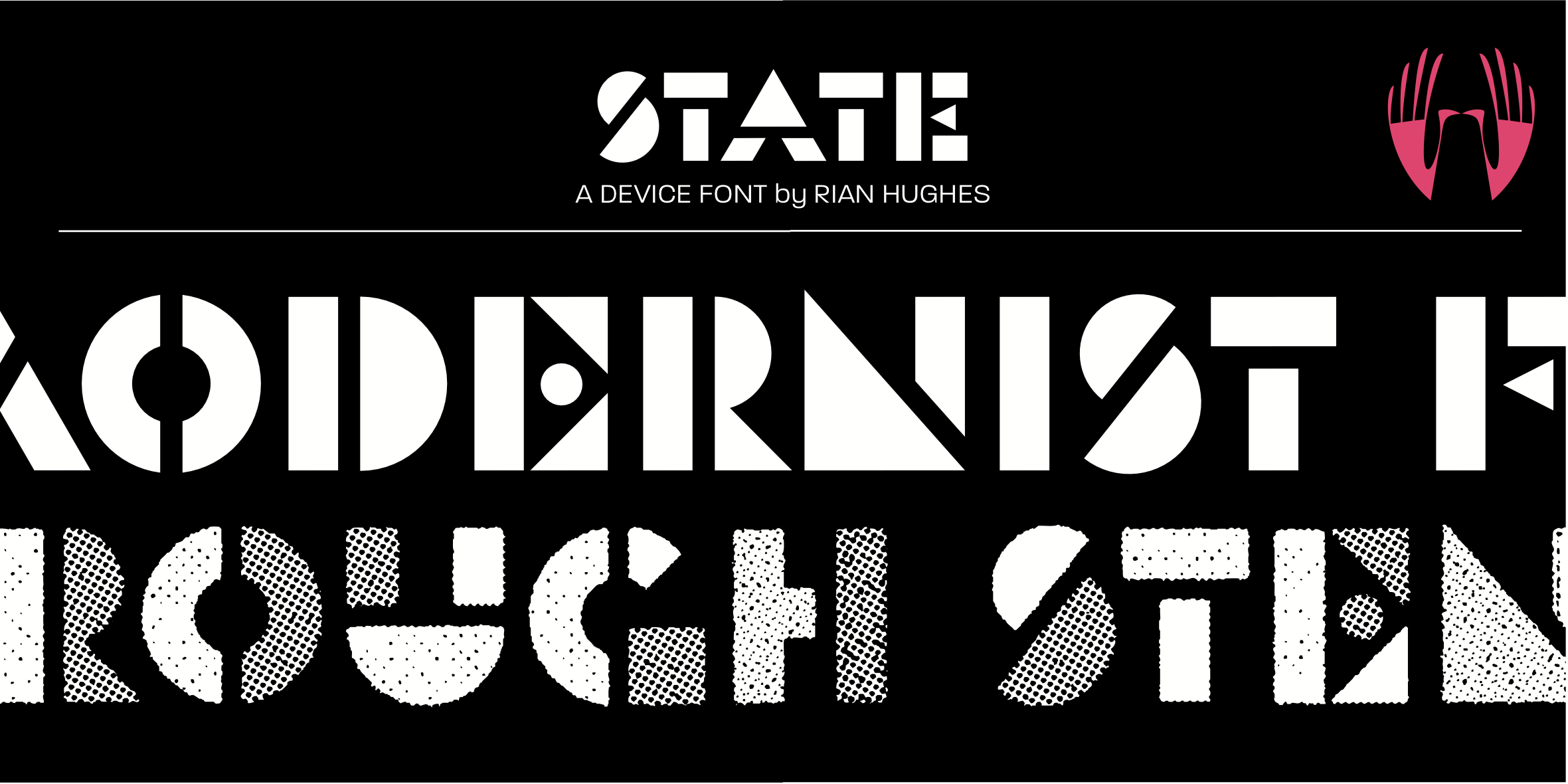
State Font is perfect for government agency branding, official document templates, political campaign materials, institutional presentations, civic organization logos, public service announcements, municipal website designs, legal firm communications, administrative forms, and corporate governance reports. This authoritative typeface brings official credibility and institutional trust to any design project requiring governmental authority and public sector professionalism.
State Font is exciting because it embodies the strength and reliability of established institutions through its solid, dependable letterforms that command respect and convey official authority. The font's formal character and institutional presence make it ideal for organizations that need to communicate legitimacy, trustworthiness, and governmental credibility to citizens and stakeholders seeking reliable public services.
State Font family includes multiple weights and styles: Regular, Bold, Light, Medium, Black, Condensed, Extended, Official, Government, and Administrative variants. Each style maintains the distinctive authoritative character while providing comprehensive typographic solutions for complex institutional branding and official communications requiring both formal presentation and public accessibility.
Whether you're designing for government entities, legal institutions, or civic organizations, State Font Free Download delivers the official authority that establishes trust and credibility with public audiences. This institutional typeface combines governmental heritage with contemporary functionality, making it essential for projects requiring both official legitimacy and professional clarity. The font's authoritative presence ensures confident communication in governmental and institutional contexts.